Questions for Font Creators Part 6: Favorite Glyph Among Numbers and Symbols
The question “What is your favorite glyph among numbers and symbols?” was asked to staff at the Type Project.
There are a variety of numbers and symbols included in each font, and the number of glyphs increases with the combination of those originating from Japanese and those coming from Latin. The answers given by designers, however, are frequently used, familiar glyphs.
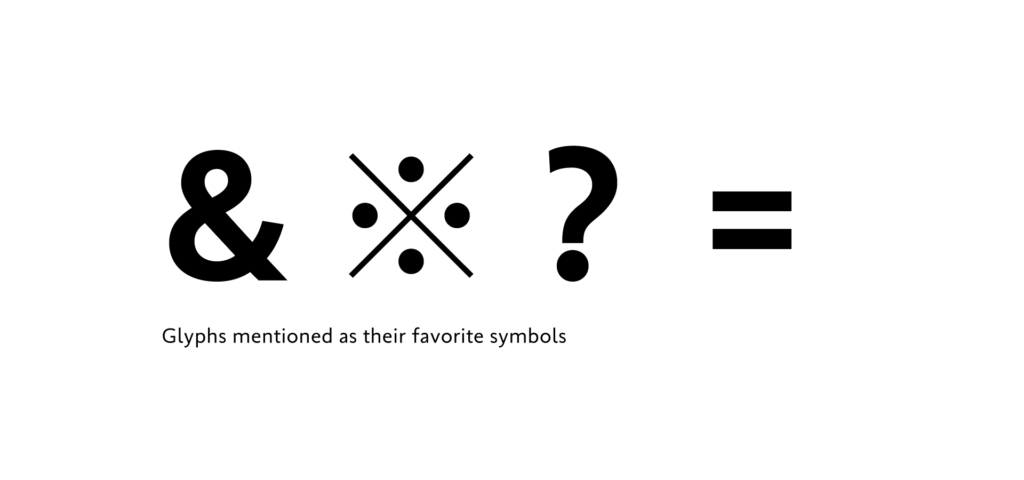
- &:
Although it indicates a link, I feel it has a star-class attractive aura on its own. This is the character that I find myself unintentionally checking.
- &:
As there are various character shapes and arrangement methods, this is a glyph that can broaden the design width. It is enjoyable to think about creating a shape that matches the typeface concept.
- ※:
As I use it frequently, I somehow feel at ease when the size of the symbol matches in the typeface.
- ?:
I feel that I still haven’t met the ideal “?” inside of me, so I’m concerned in particular about this glyph.
- =:
I am a math major, so I have a preference for balance between numbers and the equal sign. In math, it is a symbol that divides the left hand side and the right hand side. I would be pleased to see some blank space on both sides, but I feel it is jammed in many cases used with numbers in general typesetting and in glyph creation methods.
Although numbers have fewer variations than symbols, the answers included glyphs in which typeface features tend to appear, and derived styles, such as old-style numbers, etc.
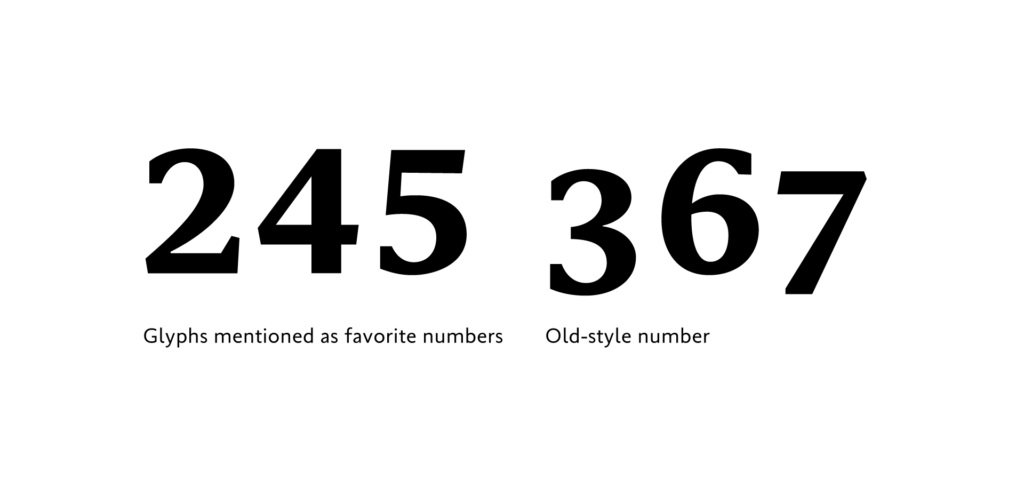
- 4:
It has a large straight line part out of all the numbers.
- 4:
It is not especially my favorite glyph, but I chose it because April is my birthday month.
- 5:
When trying to recognize typeface in numbers, I look at 5.
- 2:
I like to draw the shape of 2.
- Old-style number:
Not a single unit, but I like the sense of rhythm and atmosphere when typesetting old-style numbers with different heights in line. It is difficult to balance design, so creation is a hard task.
Due to the great numbers of glyphs related to symbols and numbers, understanding use and appropriate design is difficult even for creators. Therefore, creation is often performed in reference to a variety of different materials. Although the design management is difficult, there are many glyphs that can show typeface individuality by adding different arrangements and playfulness. You may discover something interesting when purchasing a font by checking the design of numbers and symbols you don’t normally use.